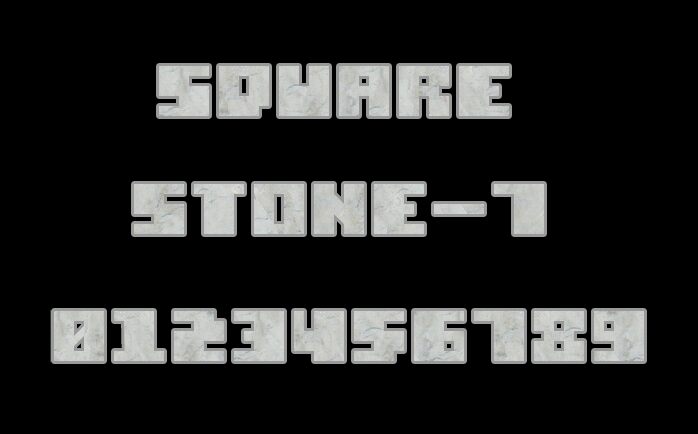
Square Stone-7 by Style-7 is a free techno display font whose broad, squared capitals have the severe profile of machine-cut lettering. Deep rectangular notches and narrow openings interrupt the dense shapes, with abrupt shifts between wide and slim sections suggesting an industrial control panel or early digital hardware.
Retro computing and arcade themes are its clearest home. Game title cards and electronic music posters draw directly on that connection, and the same squared forms can become circuit-like graphics for product packaging or event signage.